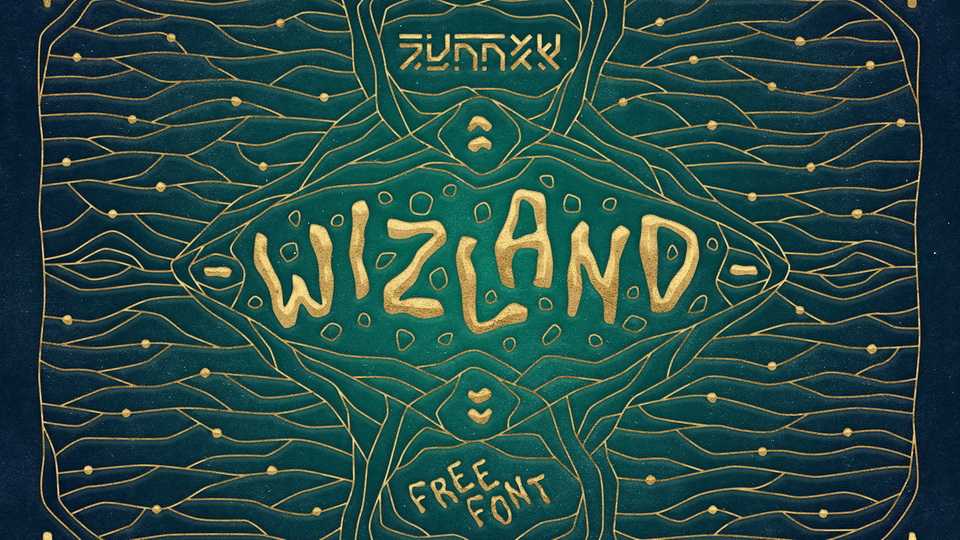
Download Wizland font, a fantasy jewel and stony typeface with ethnic style. Wizland font is perfect for decorative graphics, books, posters and magic design.